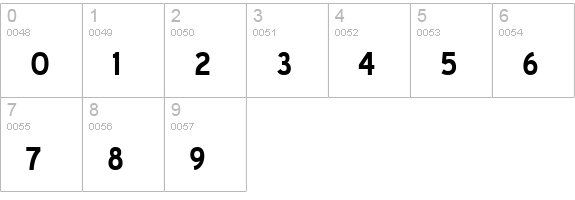
Blue Highway Bold Font Details
Blue Highway Bold is a strong, high-contrast variant in the Blue typeface family \xE2\x80\x94 well suited to headlines, attention-grabbing titles, and strong calls-to-action.
Blue Highway Bold is a striking and modern font that exudes confidence and professionalism. Its bold and clean lines make it perfect for creating eye-catching headlines and impactful designs. This versatile font is ideal for a wide range of projects, from posters and flyers to websites and branding materials. The best part? Blue Highway Bold is available for free download at FontsMarket.com. With just a few clicks, you can add this stylish font to your collection and start using it in your projects right away. Don't miss out on the opportunity to enhance your designs with Blue Highway Bold - download it now and take your creativity to the next level!